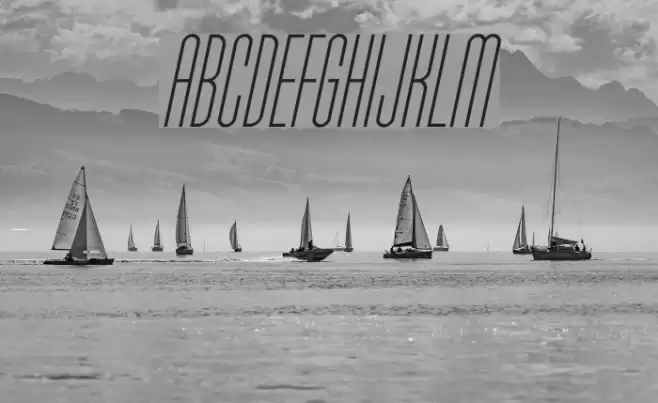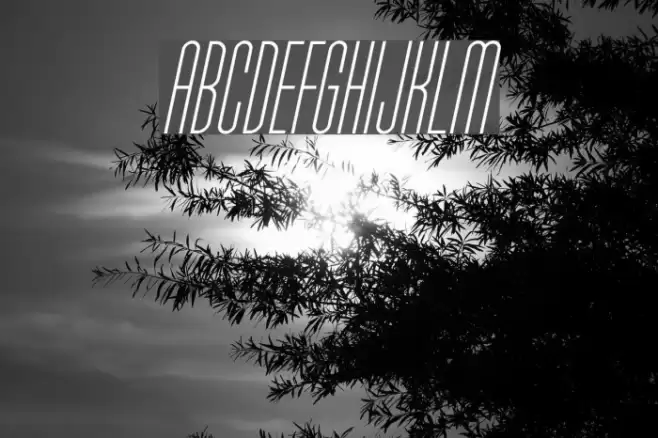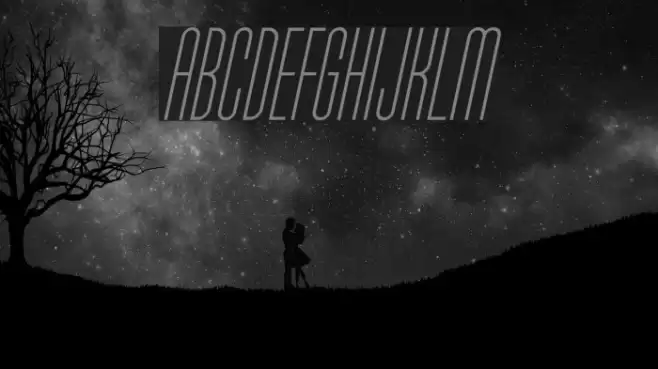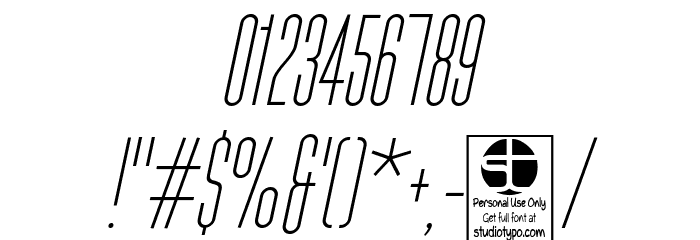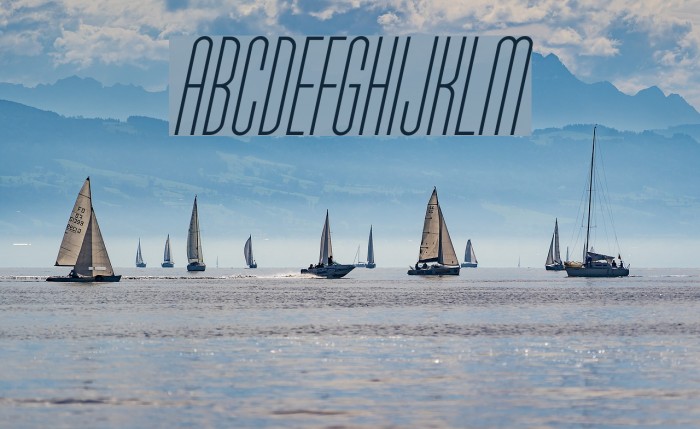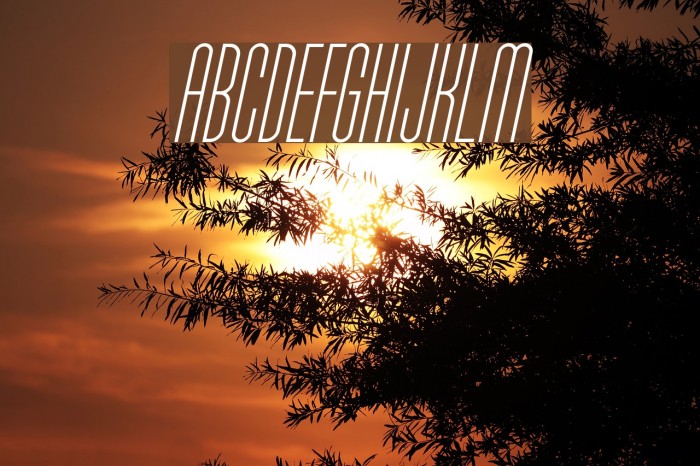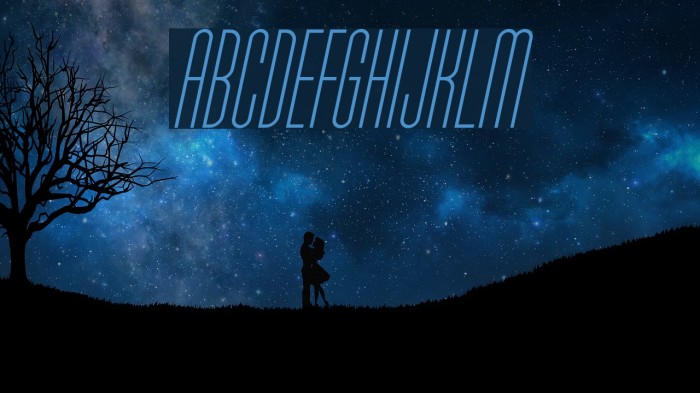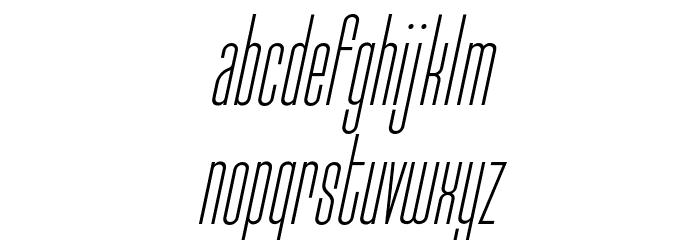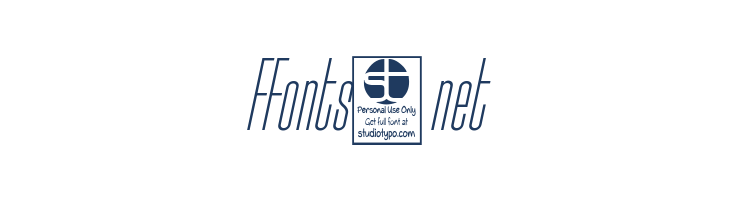
Typo-Longest Light Demo Italic Font
Typo-Longest Light Demo Italic Description
This font features an elongated and sleek design with a distinct italic slant, giving it a dynamic and modern appearance. The characters are tall and narrow, contributing to a condensed look that maintains readability. The strokes are consistent in weight, offering a uniform appearance across all characters. The font includes a full set of uppercase and lowercase letters, numbers, and a variety of special characters, making it versatile for different uses. Its clean lines and contemporary style make it suitable for projects that require a touch of elegance and sophistication.
A sleek, elongated italic font with a modern and dynamic style from Modern fonts.
- Proposed Projects: Ideal for fashion magazines, modern branding, elegant invitations, and stylish posters.